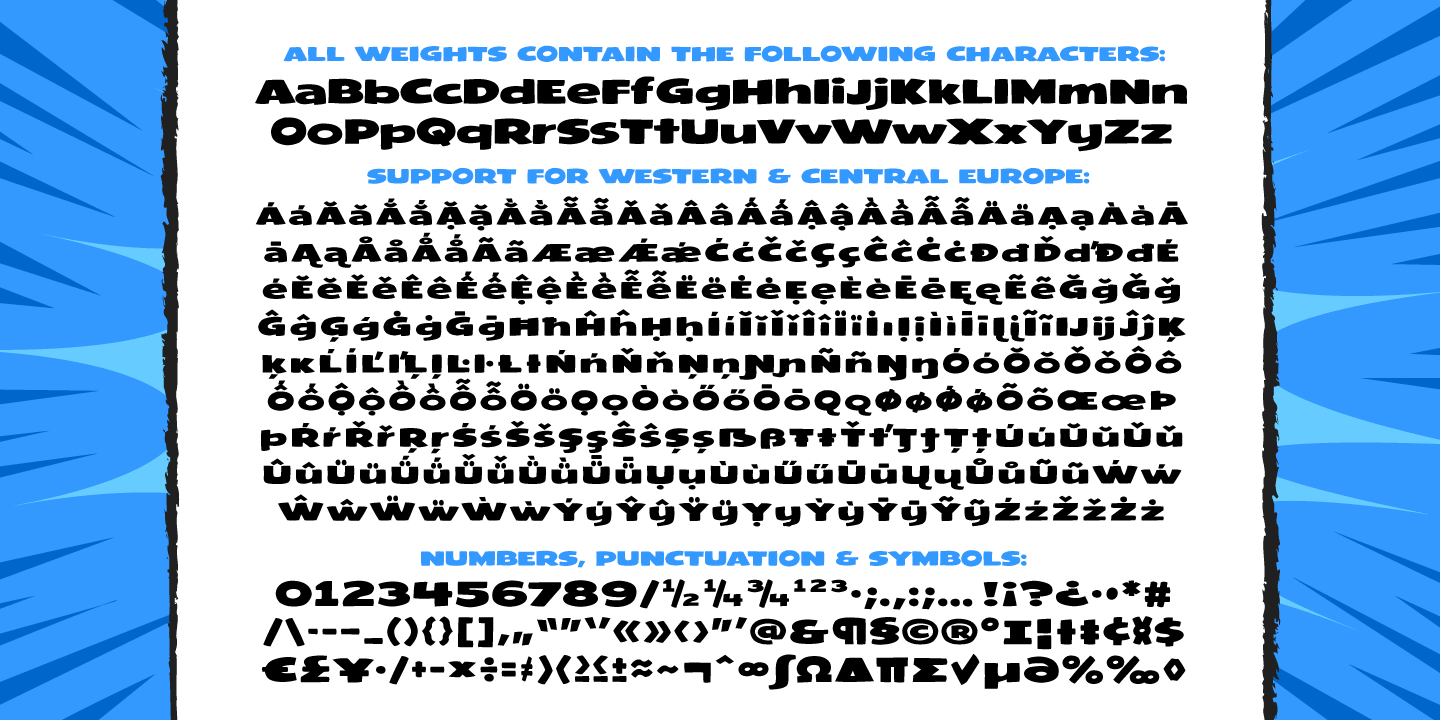
Framistat Font is perfect for statistical design projects including data visualization companies, research institutions, analytics software platforms, scientific publications, statistical consultancies, market research firms, data science organizations, and evidence-based marketing campaigns. This precise typeface excels in statistical reporting agencies, data analytics companies, research universities, survey organizations, and projects that celebrate the accuracy and reliability of statistical analysis and data-driven decision making.
What makes Framistat Font exciting is its analytical statistical character that perfectly captures the essence of data precision and scientific methodology. The font features systematic letterforms with mathematical accuracy that reflects the rigorous standards and methodical approach of statistical analysis. Its precise design elements embody the spirit of scientific inquiry and data integrity, making it perfect for projects that need to convey accuracy, reliability, and connection to statistical excellence. The carefully crafted analytical proportions create an atmosphere of scientific sophistication and statistical authenticity.
Framistat Font comes in multiple family variations including analytical, precise, systematic, and scientific styles. Each weight maintains the distinctive statistical character while offering different levels of analytical intensity and data presence. The font family includes data alternates, statistical ligatures, and analytical variations that provide designers with comprehensive options for creating truly accurate and scientifically authentic typographic compositions that celebrate statistical excellence.
Whether you're designing research branding, creating analytical marketing materials, or developing statistical promotional graphics, Framistat Font Free Download provides the perfect typographic foundation for projects that celebrate data excellence and statistical sophistication. This remarkable typeface transforms ordinary text into compelling expressions of analytical wisdom and scientific precision. Download this systematic font today and analyze your design projects with the statistical authenticity and data accuracy that captures the essential spirit of scientific research and evidence-based analysis.